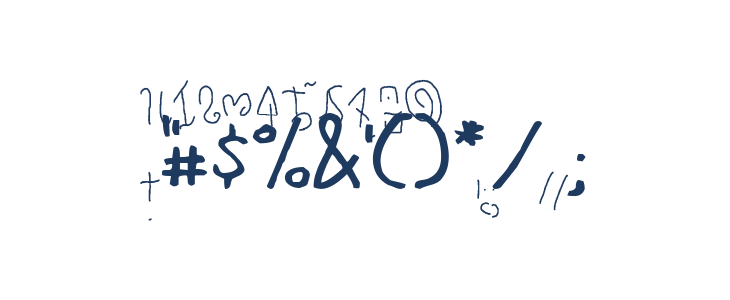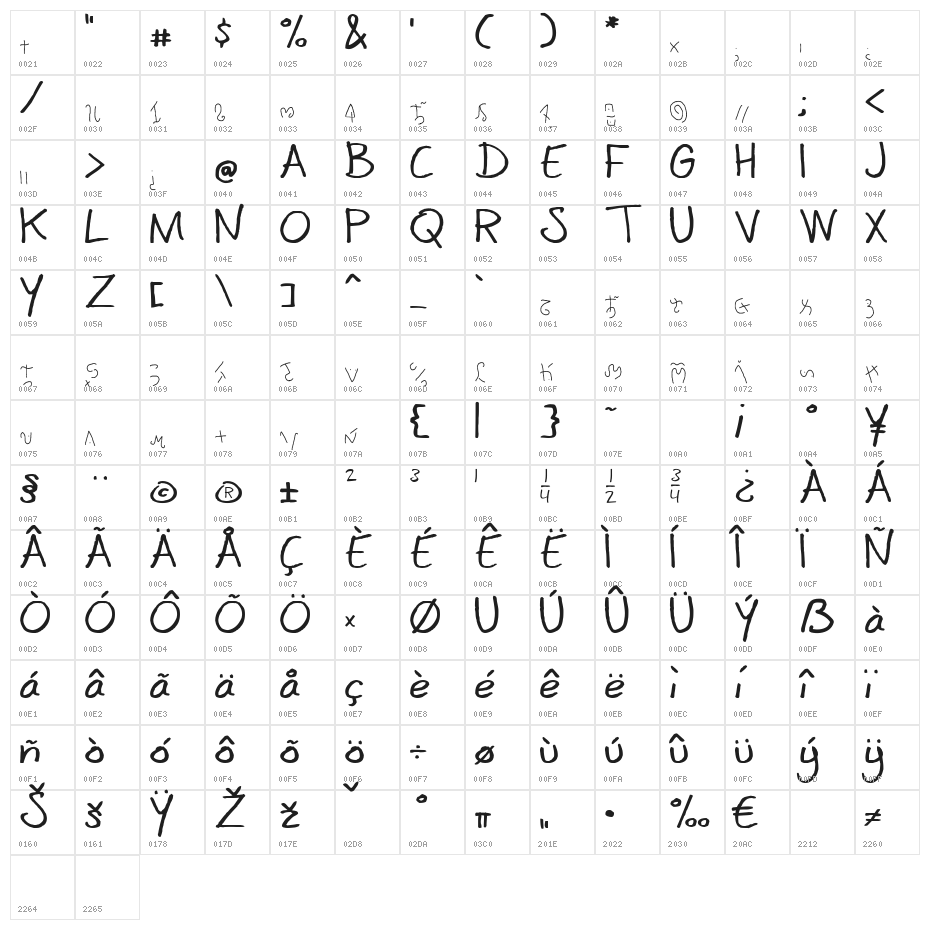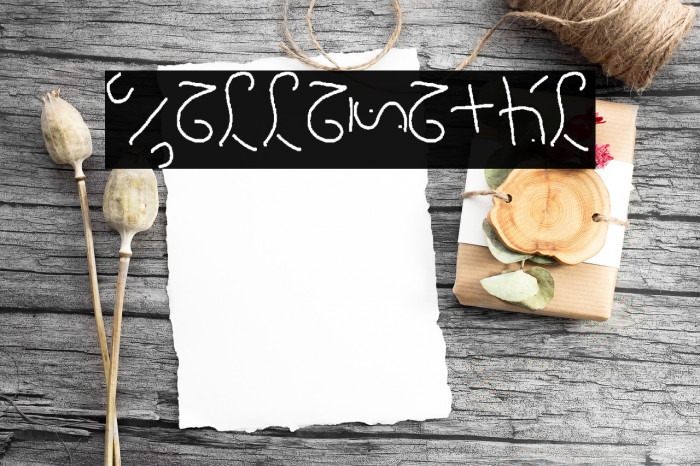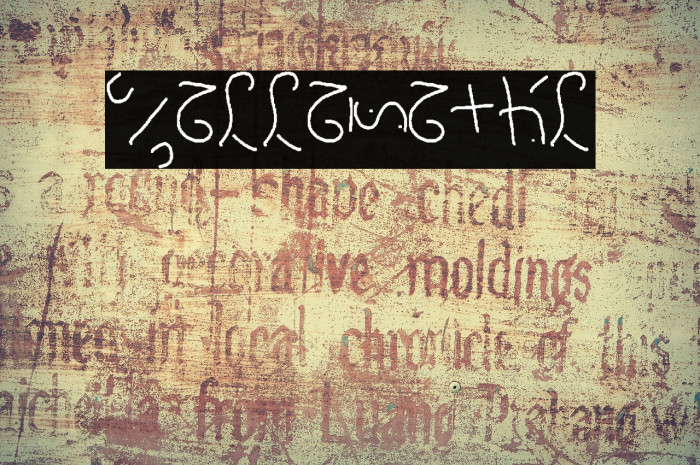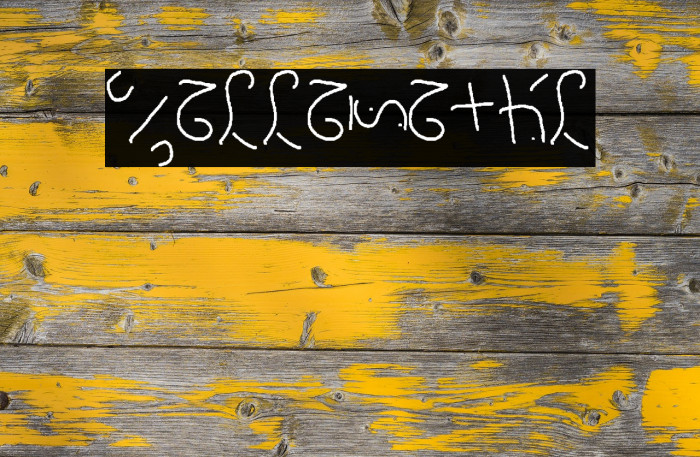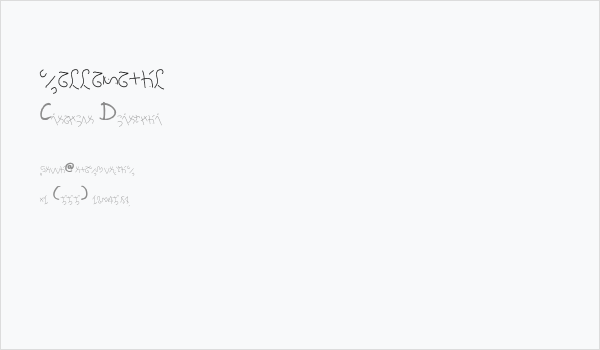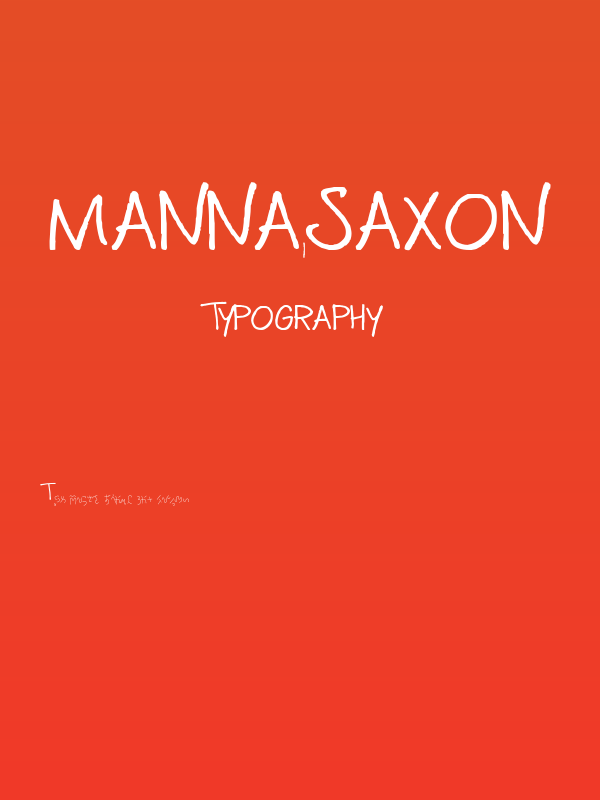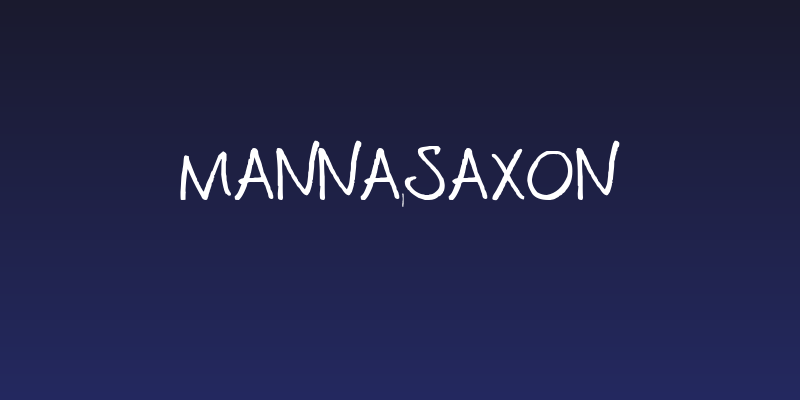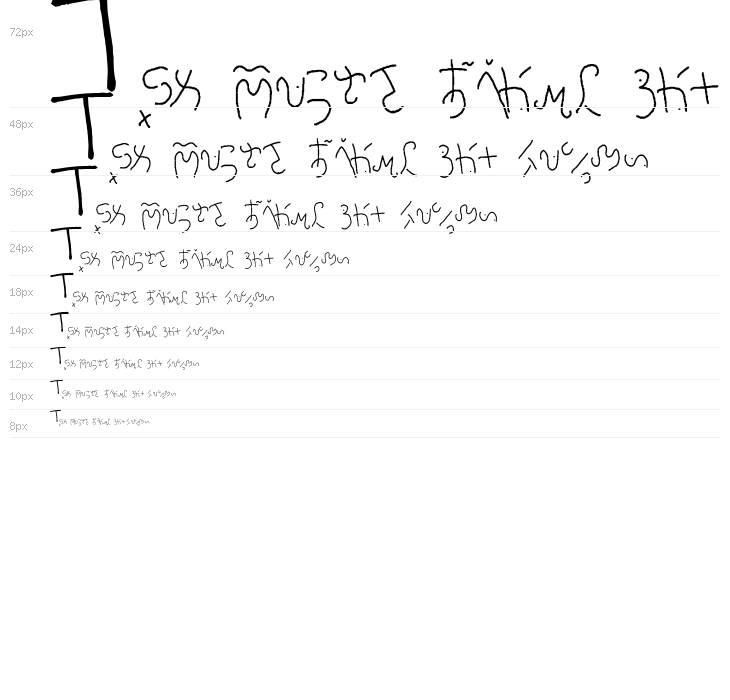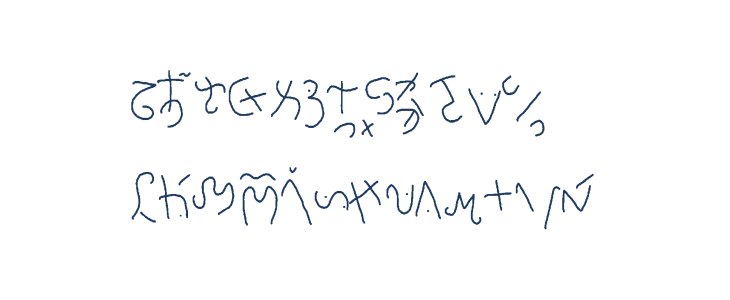
manna-saxon Font
This font features a playful and casual handwritten style, characterized by its irregular strokes and organic flow. The uppercase letters are bold and slightly slanted, giving a dynamic and energetic feel. The lowercase letters maintain a consistent style with a more relaxed and informal appearance. Numbers and special characters follow the same whimsical design, making them suitable for creative and artistic projects. The overall look is approachable and friendly, ideal for conveying a personal touch in design work.
Overall StyleCasual, Playful
Use CaseHeadlines, Logos, Informal Text
Proposed ProjectsIdeal for greeting cards, children's books, personal blogs, and creative branding projects.